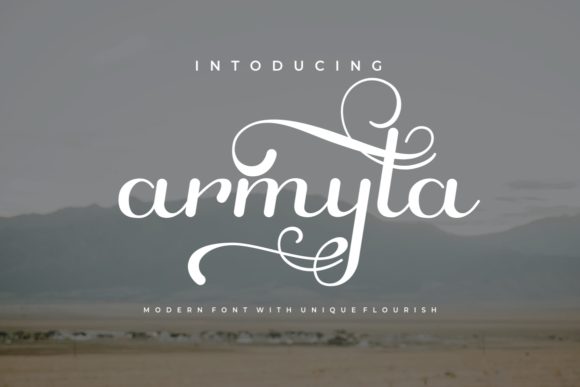
The Armyta Font: A Designer’s New Best Friend
I’ll never forget the moment I stumbled upon the Armyta font. I was working on a project for a client who wanted a elegant, yet modern look. I had spent hours scouring the internet for the perfect font, but nothing seemed quite right. That was until I saw Armyta – its beautiful, flowing script immediately caught my eye. I knew right then and there that I had found the one.
So, what makes Armyta so special? Let’s dive into the good stuff:
- ✨ Exquisite handwritten feel: Armyta has a beautiful, organic feel that makes it perfect for projects where you want to add a personal touch.
- ✅ Classy calligraphic influences: The font’s calligraphic roots give it a sophisticated, elegant feel that’s perfect for high-end projects.
- ✅ Contemporary and fresh: Despite its classic influences, Armyta feels modern and fresh – perfect for designers who want to stay on-trend.
Of course, no font is perfect, and Armyta is no exception. Here are a few things to keep in mind:
- 🤔 Limited use in very small sizes: While Armyta looks beautiful in larger sizes, it can get a bit lost in smaller sizes – so be sure to test it out before committing.
- ⚠️ Some letters may require manual kerning: As with any font, you may need to do some manual kerning to get the letters to look just right.
The Story Behind Armyta
Armyta was designed by a team of skilled typographers who wanted to create a font that would be both elegant and modern. With its beautiful, flowing script and contemporary feel, Armyta is the perfect choice for designers who want to add a touch of sophistication to their projects.
| Is Armyta suitable for body text? | While Armyta is a beautiful font, it’s best suited for headlines and titles rather than body text. |